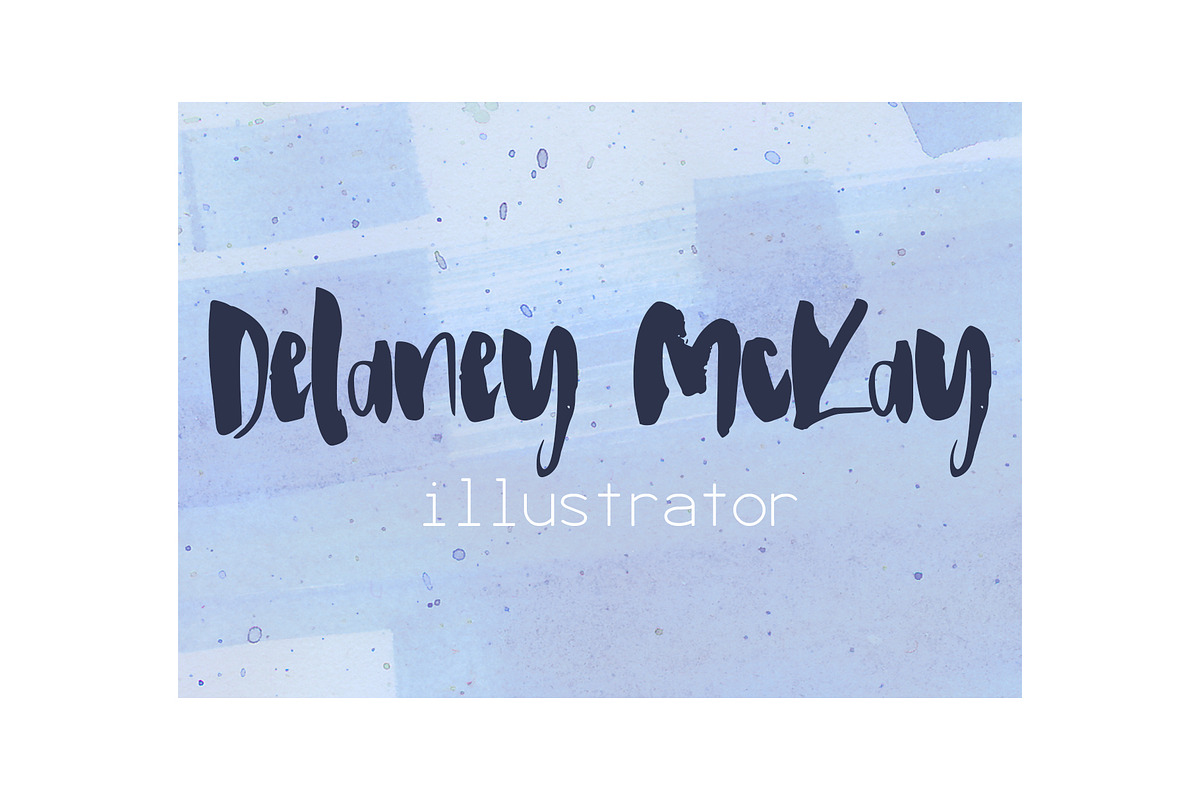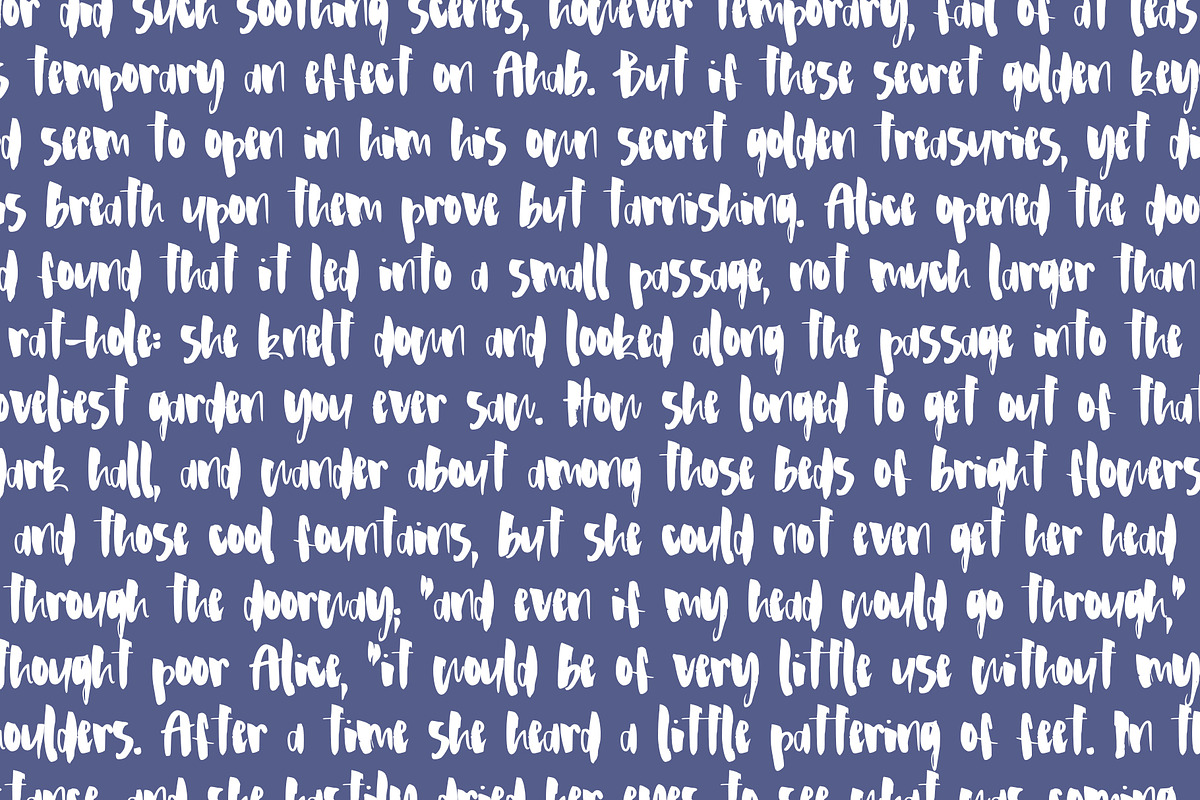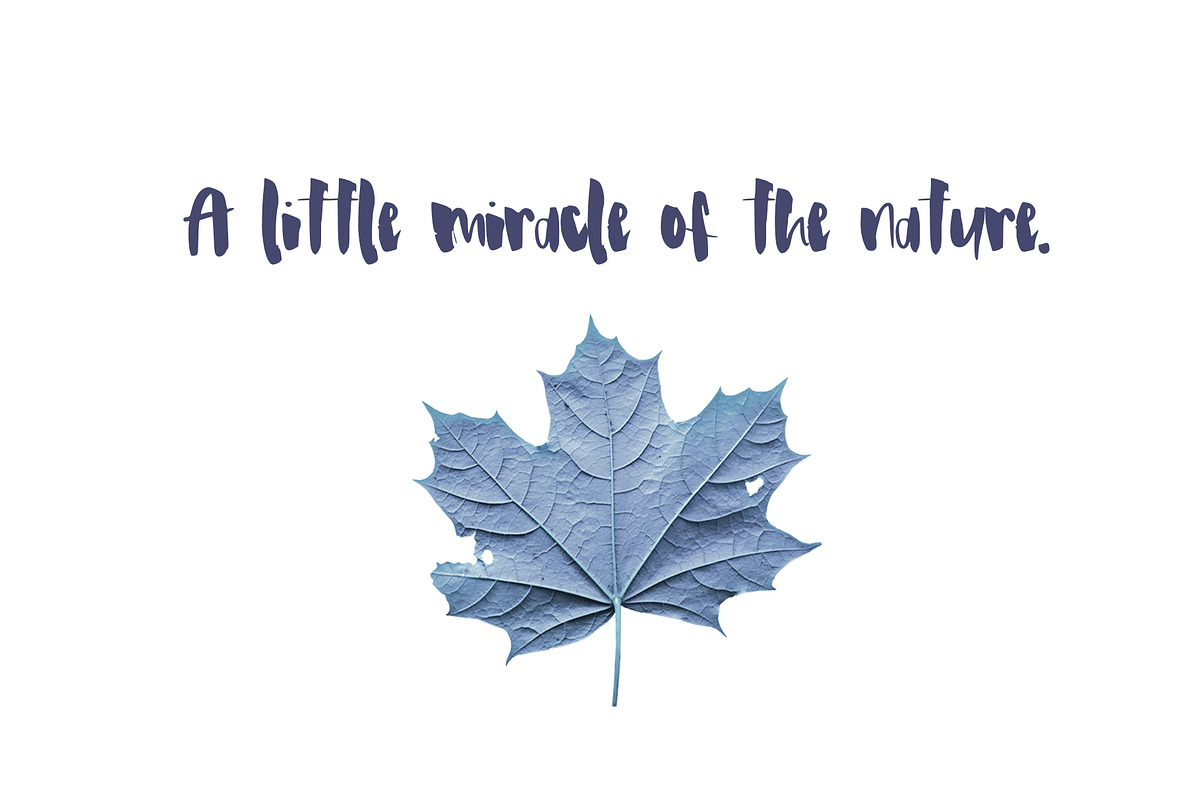
Haley Font
Introducing Haley, a unique streetstyle script.💗 Perfect for any graphic and logo designs, bohemian wedding and birthday invitations.
- Haley font contains uppercase & lowercase characters, numbers and punctuations.
Why Haley Font is worth a look
Haley Font by SophieSaxo fits naturally into Branding, posters, packaging, typography.